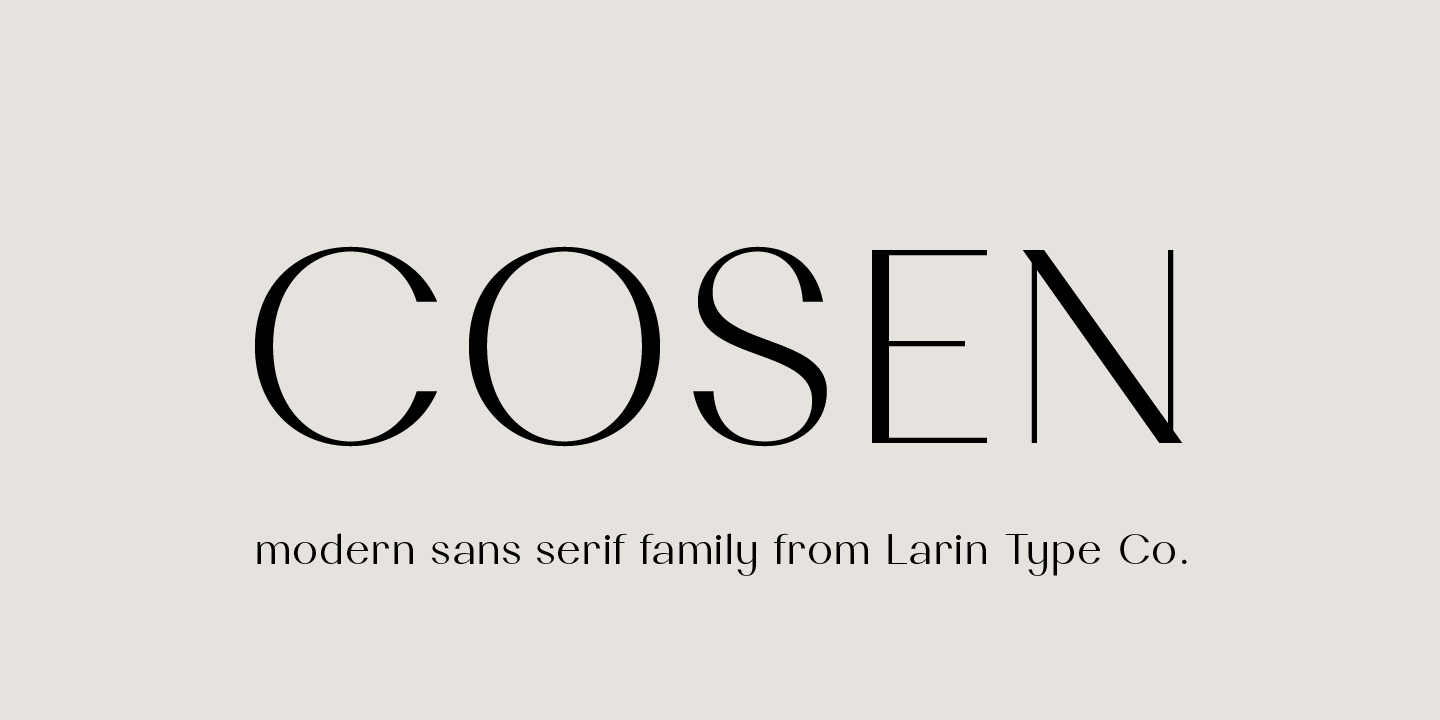
Cosen Font is perfect for minimalist branding projects, modern packaging design, architectural firm logos, clean web interfaces, contemporary magazines, corporate identity systems, professional presentations, sleek product catalogs, upscale retail branding, wellness company materials, and any project that requires refined, understated typography with timeless appeal.
What makes Cosen Font exciting is its masterful balance between simplicity and sophistication. This elegant typeface features clean, well-proportioned letterforms with subtle geometric influences that create a sense of calm professionalism and refined taste. The font's harmonious character spacing and carefully crafted curves make it an ideal choice for brands seeking to communicate trustworthiness, quality, and modern sensibility while ensuring exceptional readability across all media platforms.
Cosen Font family includes comprehensive weight variations and stylistic options, offering designers complete flexibility for creating cohesive brand systems. The font family typically features light, regular, medium, and bold weights, along with matching italics and extended character support that provides versatility for international applications and complex typographic arrangements.
Whether you're developing brand identities for professional services, designing premium product packaging, or creating editorial layouts, Cosen Font Free Download provides the clean aesthetic and reliable performance that contemporary design projects require. Its neutral yet distinctive character makes it suitable for healthcare brands, consulting firms, lifestyle companies, and luxury retailers.
The font's versatility in both display and text applications makes it an essential tool for modern designers. With Cosen Font, your projects will communicate clarity, professionalism, and refined elegance that resonates with discerning audiences.